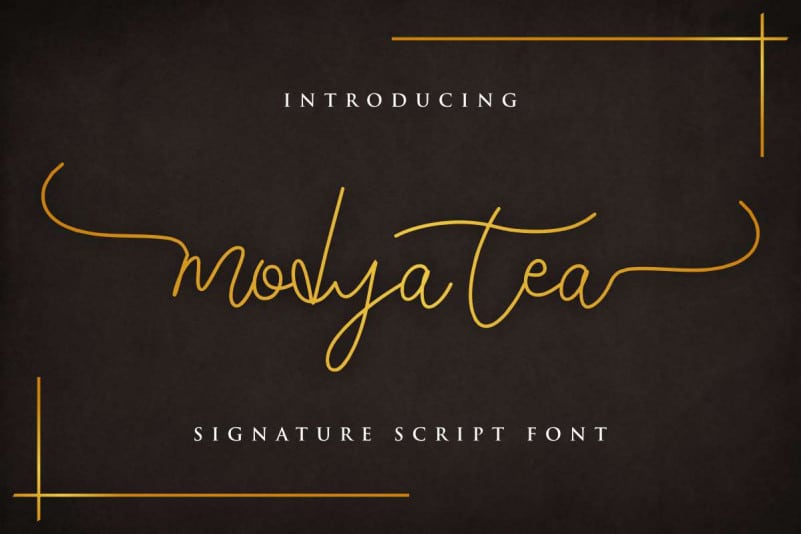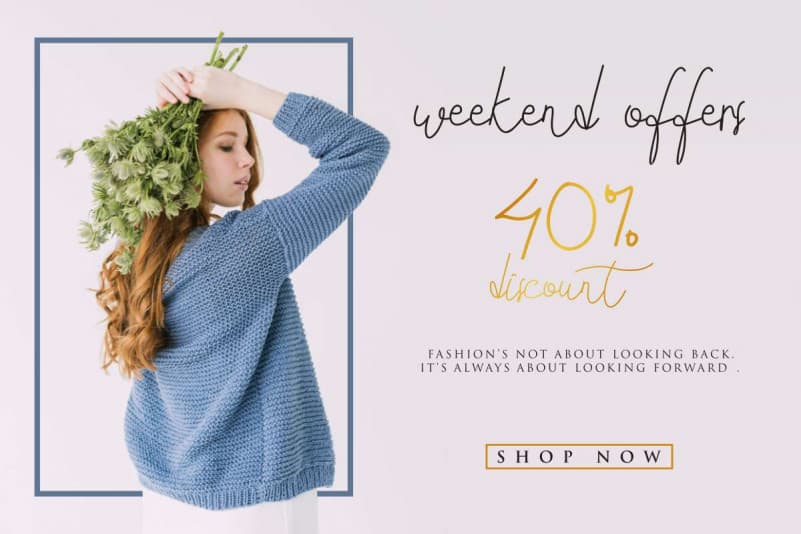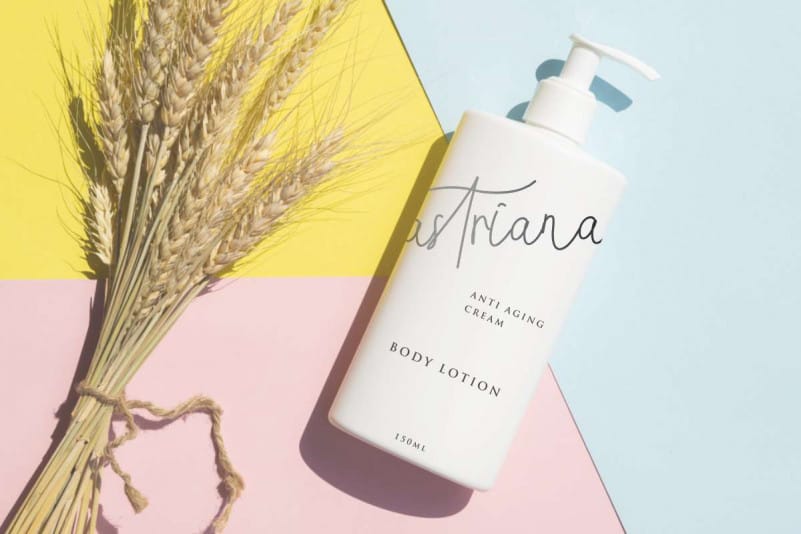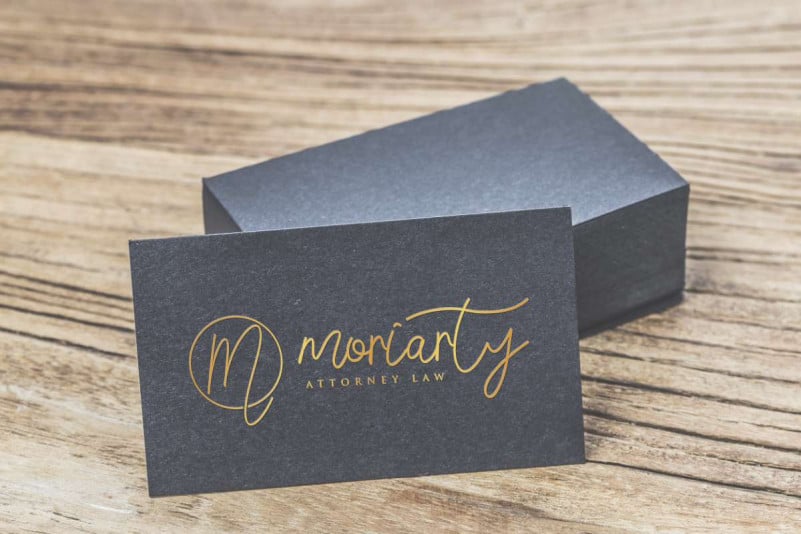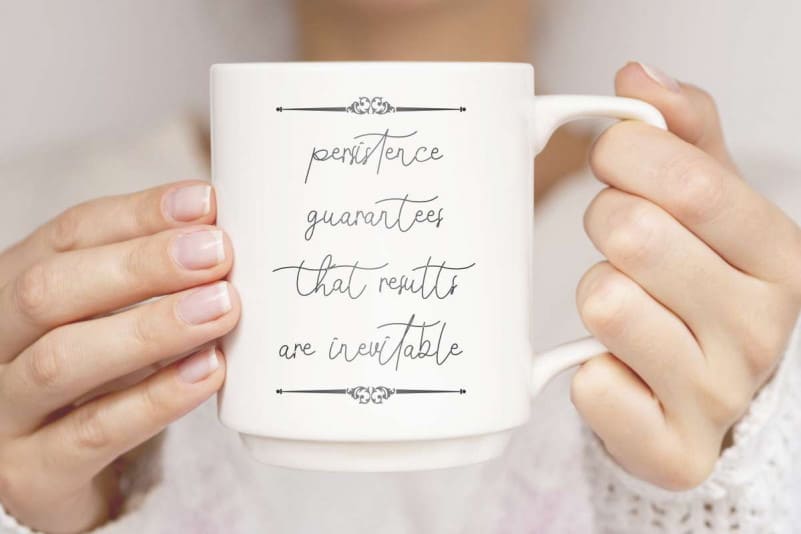
Modya Tea Signature Font
Modya Tea Signature Font is an exclusive typeface with a unique handwriting style. This font has a stunning characters set, perfectly managed with well spaced and kerning. The theme styles of this font are elegant, signature, pen writting, handmade, manual, vintage, stylish, sophisticated, fancy and classic.
Modya Tea Signature Font will be great for any projects including : branding, logo, stationery, business card, signage, flyer, brochure, movie, music etc. Almost all industries will be match for this typeface: wedding, events, real estate, architect, law firm, florist, gardening, makeup artist, travel, hotel, musician etc